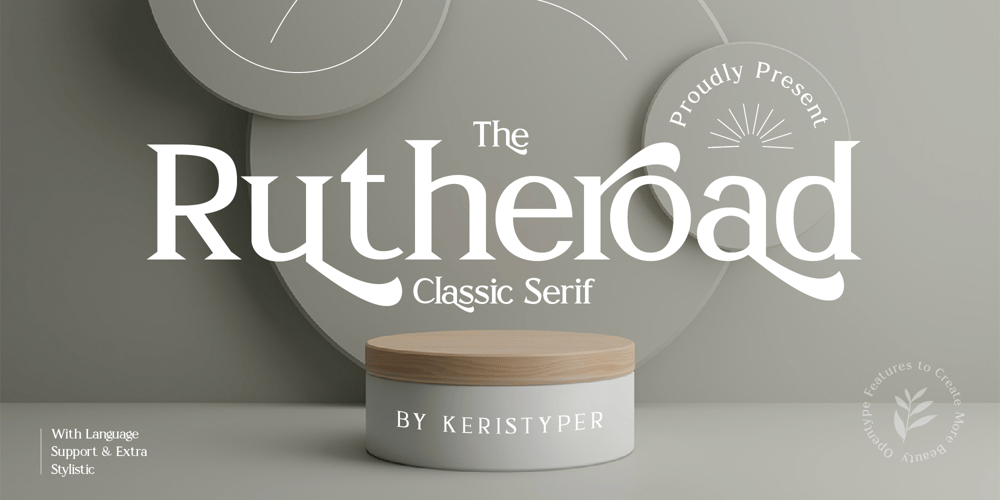
Rutheroad Font Family was designed by Tezar Tantular and published by Keristyper Studio. Rutheroad contains 1 styles and family package options. Rotheroad is an elegant classic serif font with a touch of minimalist modern style. This font is good for logo design, Social media, Movie Titles, Books Titles, short text even long text letters, and good for your secondary text font with sans or serif.Featured: Standard Uppercase & Lowercase Numeral & Punctuation Multilingual : ä ö ü Ä Ö Ü ß ¿ ¡ Alternate & Ligature PUA encoded We recommend programs that support the OpenType feature and the Glyphs panel such as Adobe applications or Corel Draw. so you can use all the variations of the glyphs. Hope you enjoy our fonts!